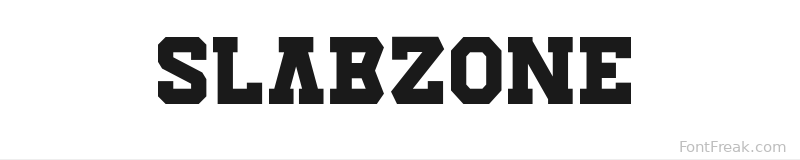
Slabzone
Slabzone is a striking slab serif font designed by Kong Font in 2021, embodying a bold and modern aesthetic that makes it an excellent choice for a variety of design projects. The visual characteristics of Slabzone include its thick stroke weight and minimal contrast, which provide a sturdy and impactful presence on any medium. The font features well-defined, rectangular serifs that enhance its legibility while adding a touch of uniqueness. Its clean spacing allows for effective readability, making it suitable for both digital and print applications.
This versatile font is perfect for a range of use cases. It shines in restaurant menus, where its boldness can highlight dish names and prices with clarity. Additionally, Slabzone is an excellent choice for movie posters, capturing attention with its robust design and making titles stand out. Graphic designers will find it useful for branding materials, as it conveys strength and reliability. Furthermore, it can add a contemporary flair to promotional flyers, making them more engaging to potential customers.
The target audience for Slabzone includes graphic designers, small business owners, and content creators who seek a font that combines modern style with functionality. This font caters to those looking to make a memorable impression through their design choices.
What sets Slabzone apart is its ability to balance boldness with elegance, making it a standout option in the slab serif category. Its free availability as a freeware font allows designers and creators to incorporate it into their projects without any licensing concerns. For those seeking to elevate their designs, the Slabzone font free download offers an opportunity to access this unique typeface and enhance visual storytelling.